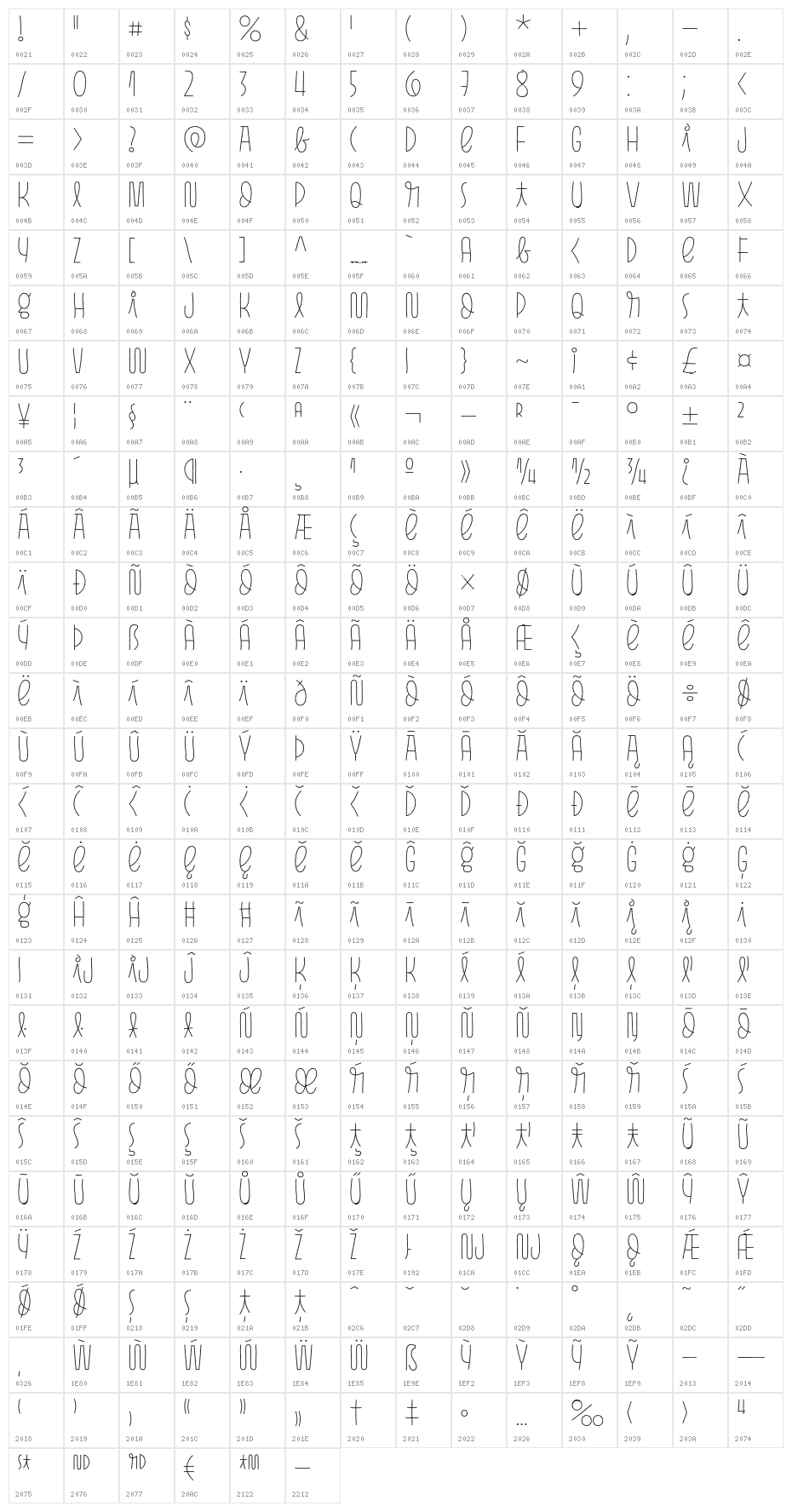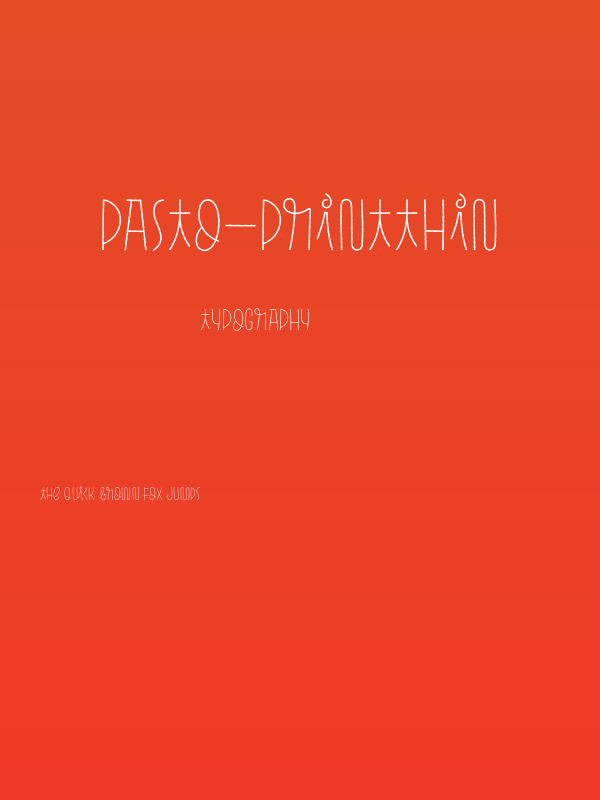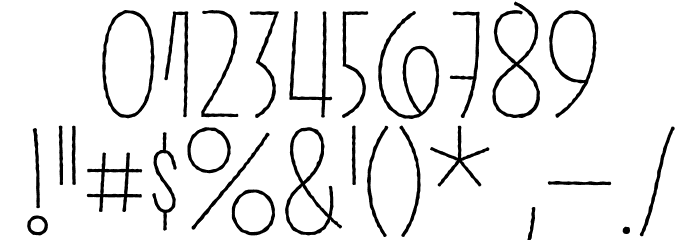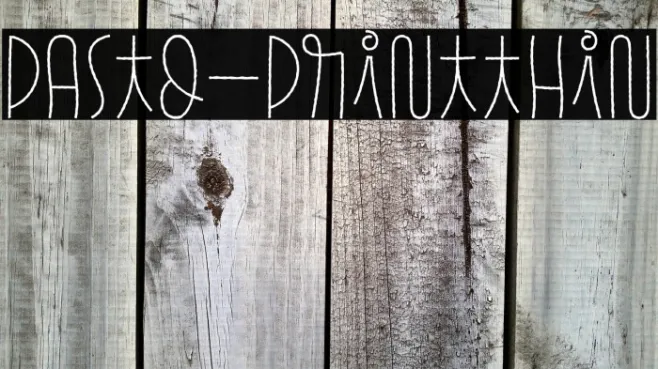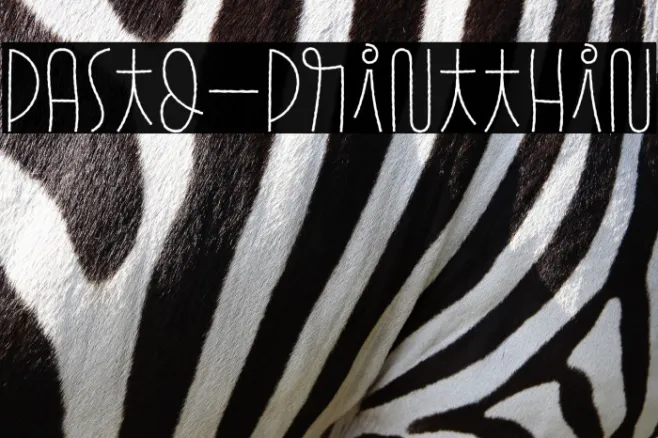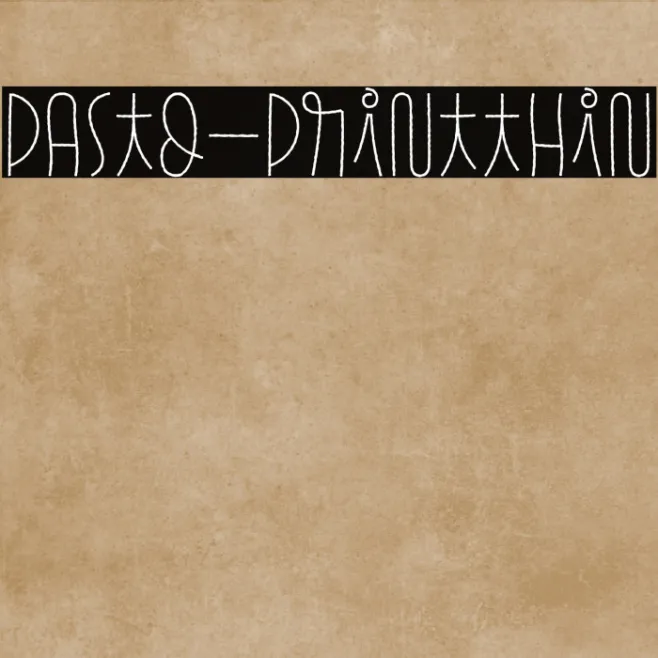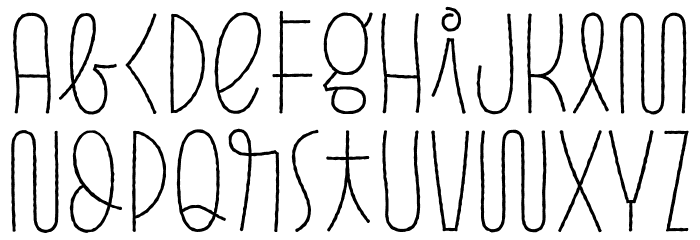
Pasto-PrintThin Font
This font features a playful and whimsical design with elongated, thin strokes that give it a light and airy appearance. The characters are uniquely crafted with a hand-drawn feel, incorporating subtle curves and loops that add to its charm. The uppercase and lowercase letters maintain a consistent height, contributing to a uniform look. The numerals and special characters are designed to match the overall style, ensuring cohesiveness across all text elements. This font's distinctive style makes it suitable for creative and artistic projects, where a touch of personality is desired.
| Proposed Projects | Ideal for greeting cards, children's books, playful branding, and artistic posters. |